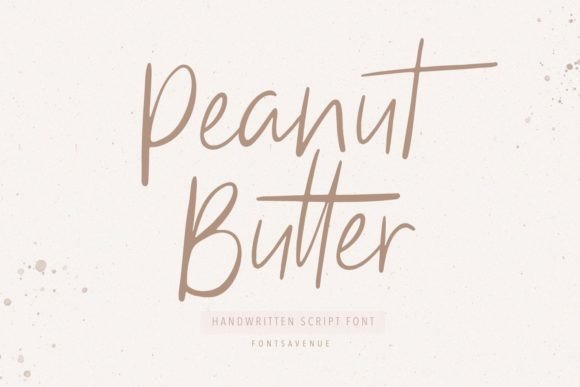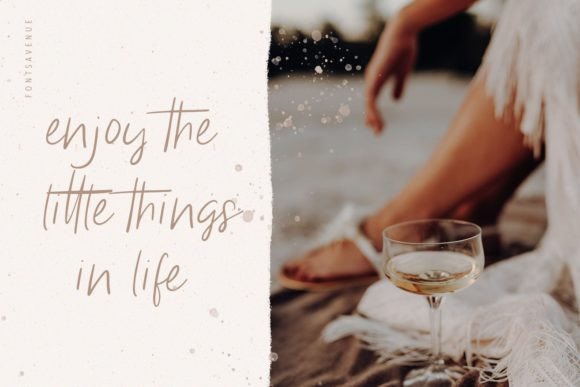
About Peanut Butter Font
Peanut Butter is a delightful handwritten script font that adds a touch of fun to your creative projects. Whether you’re working on invitations, logo design, branding, product packaging, quotes, or any other design endeavor, Peanut Butter brings a playful and charming vibe to the table.
Its casual and whimsical style makes it a perfect choice for projects where you want to inject a sense of warmth and approachability. The handwritten nature of the font adds a personal touch, making it suitable for a variety of applications where a friendly and inviting feel is desired.
The PUA encoding of Peanut Butter is a noteworthy feature, allowing easy access to a range of amazing glyphs and ligatures. This feature enhances the font’s versatility, enabling you to explore different design elements effortlessly.
In conclusion, Peanut Butter is more than just a font; it’s a creative tool designed to infuse your projects with a fun and handwritten charm. Whether used for casual or expressive projects, this script font ensures that your creations exude a delightful and playful vibe, making it a valuable asset in your design toolkit.